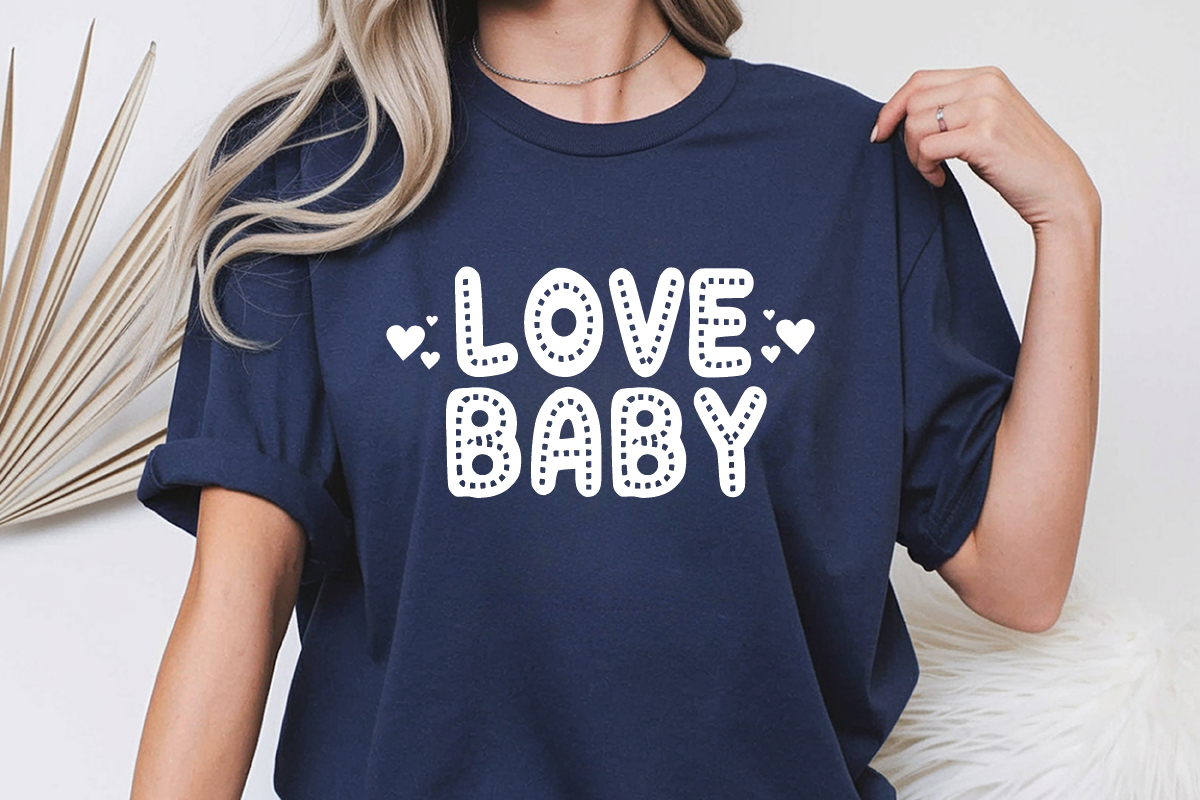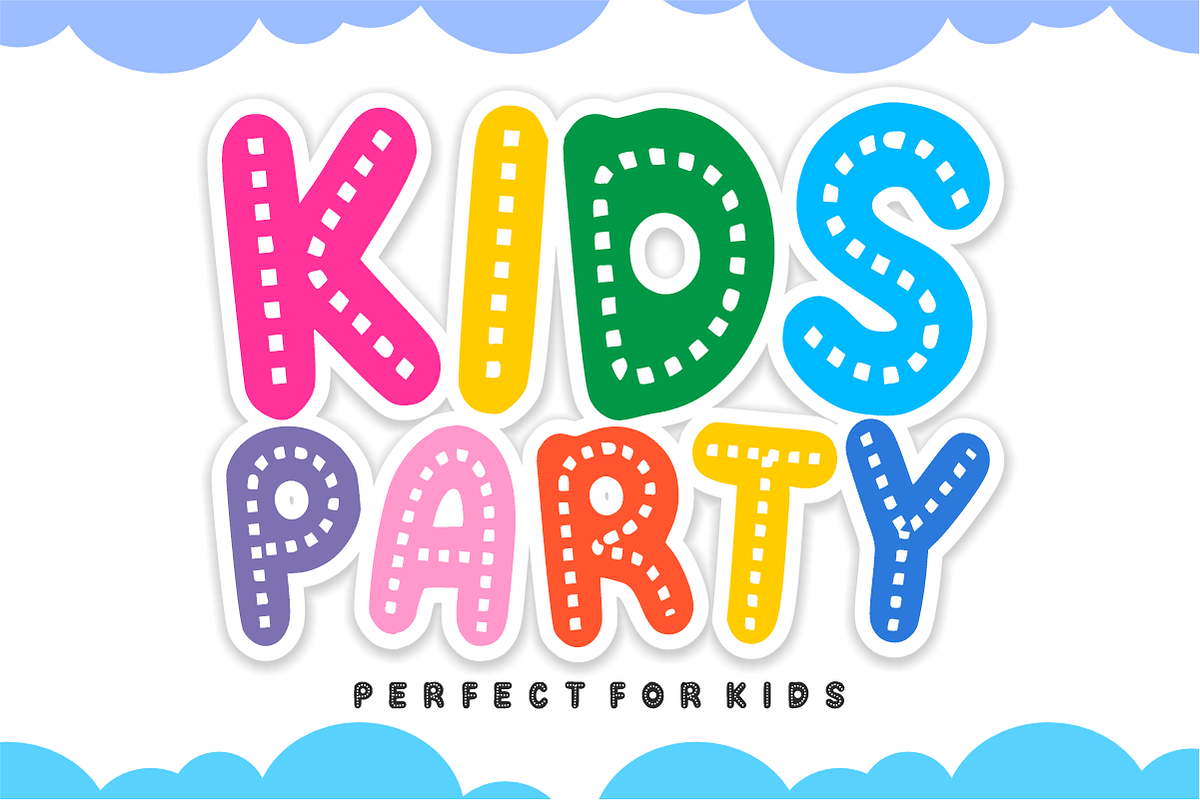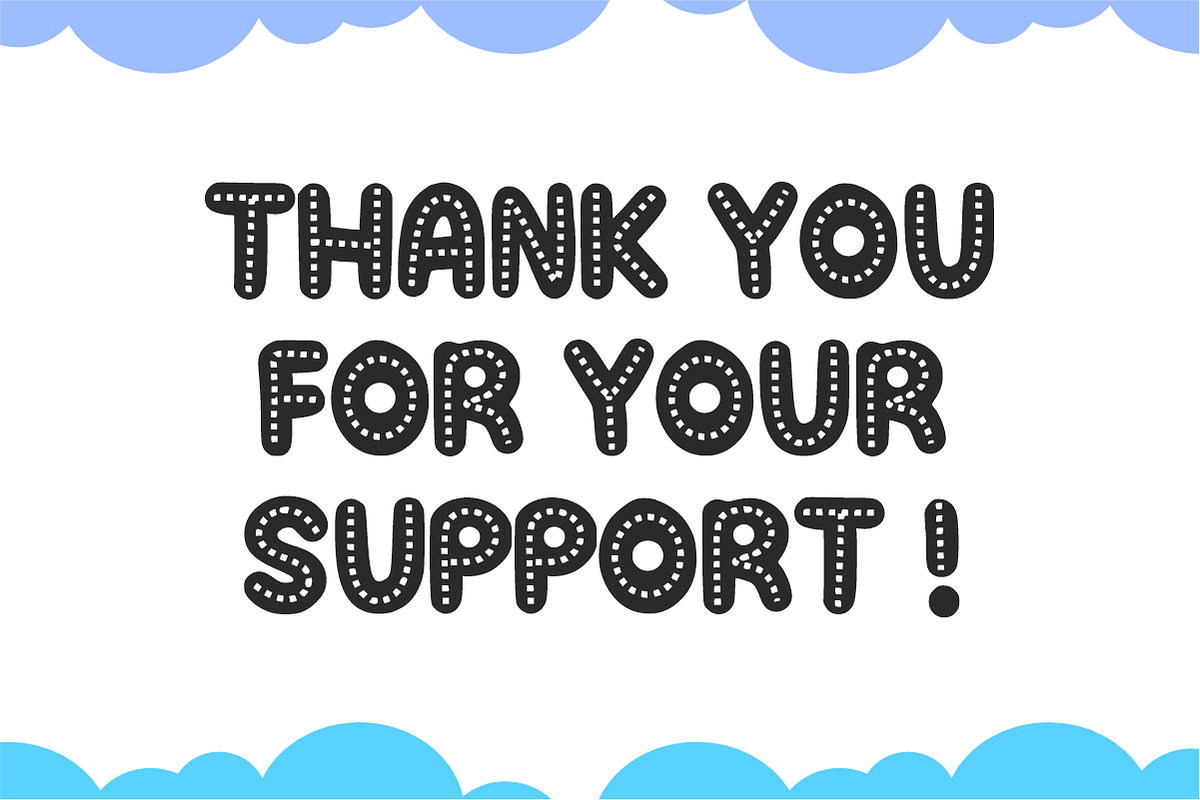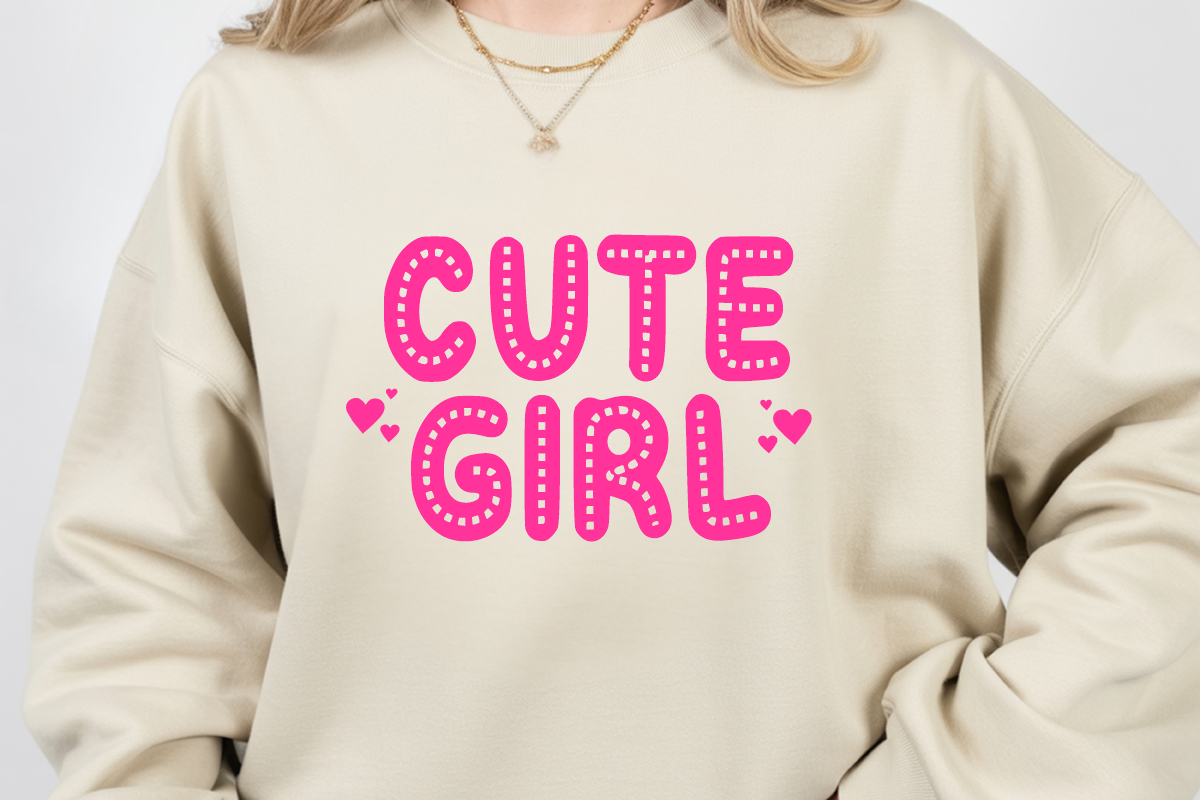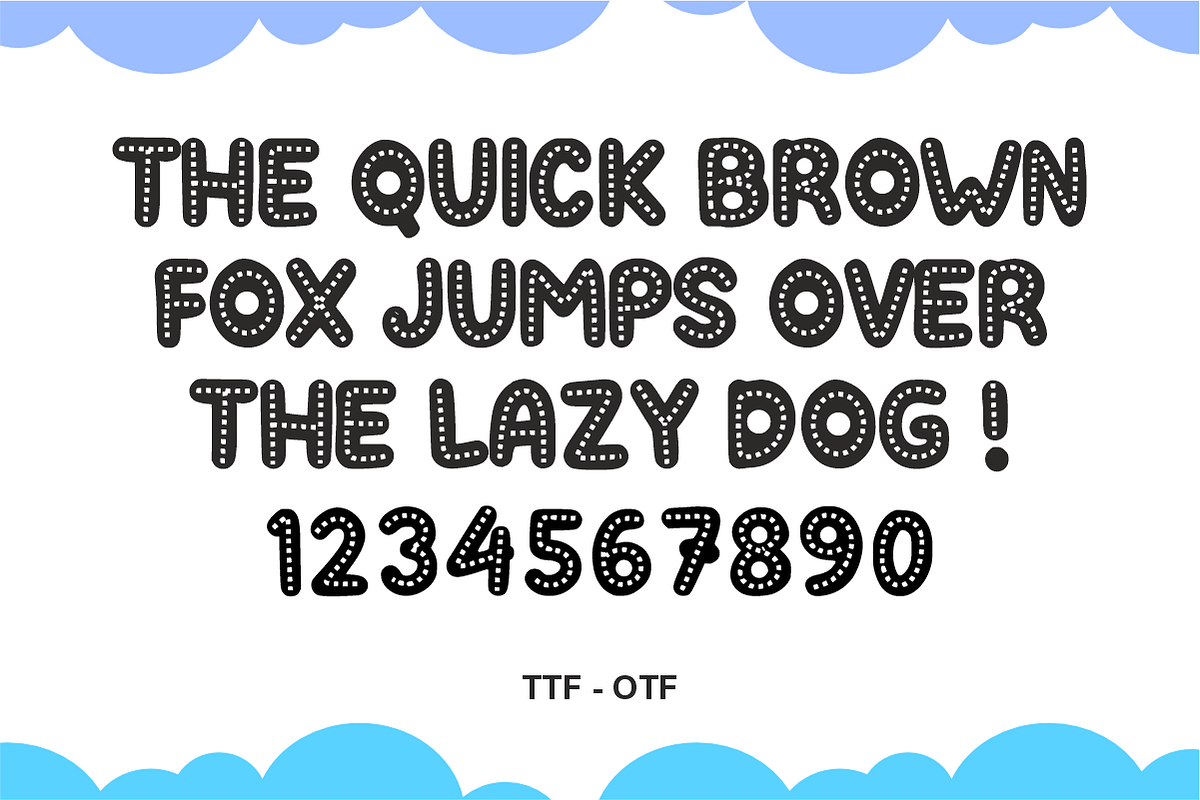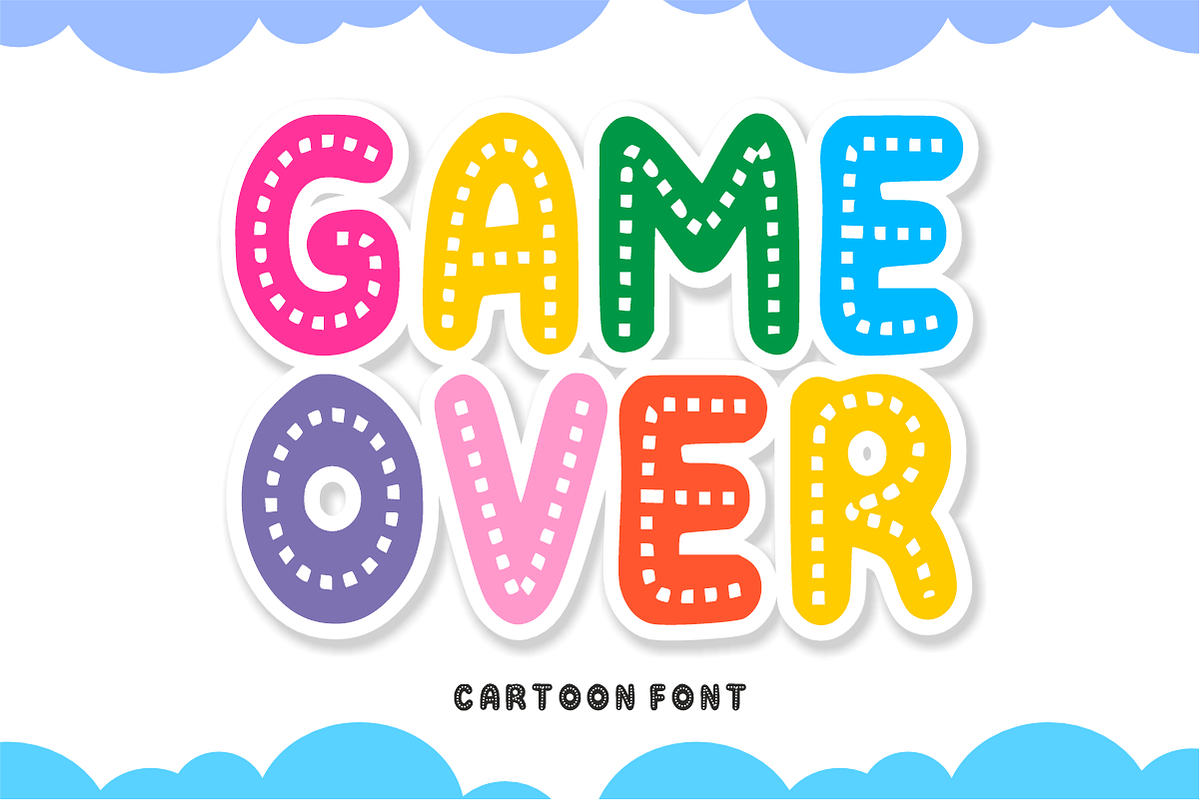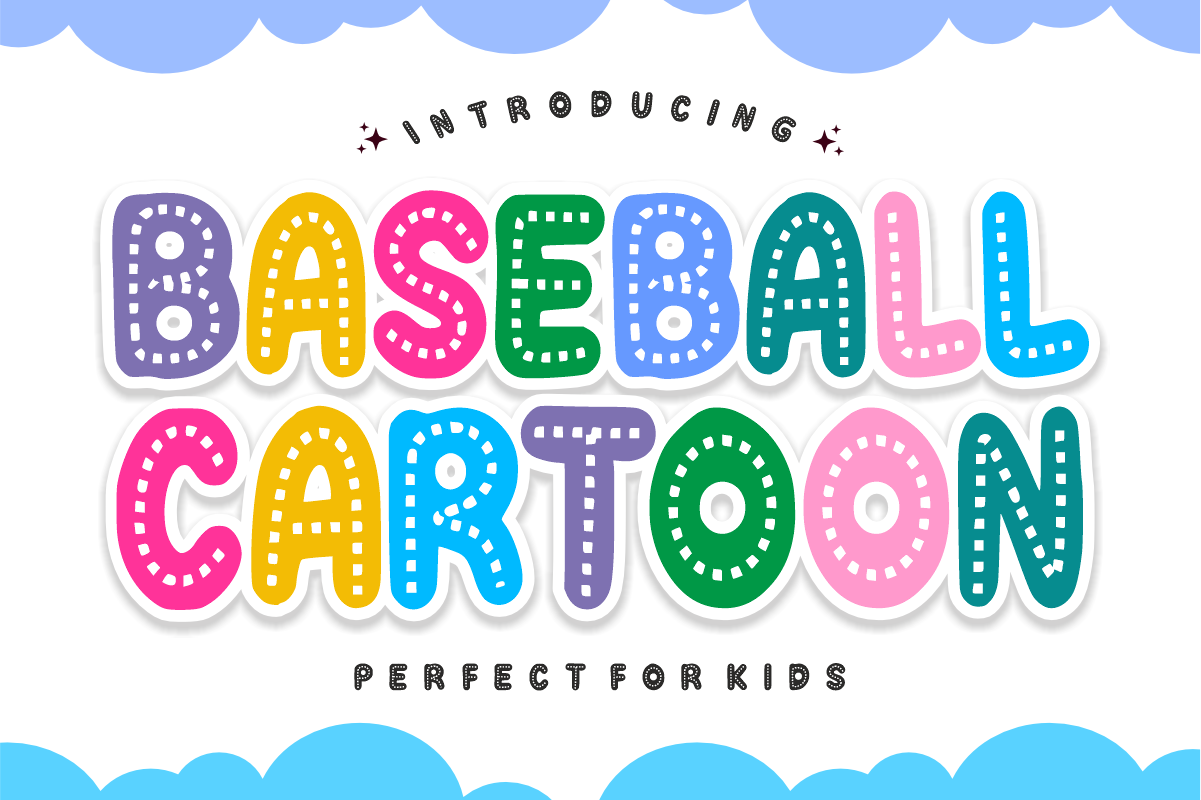
Baseball Cartoon – Stitched Font
Baseball Cartoon – Playful & Stitched Display Font ⚾🎨
Add a home-run of fun to your designs with this energetic, stitched-style font!
Baseball Cartoon is a vibrant and playful display font designed with a unique "stitched" or dashed-line detail inside each character, mimicking the classic look of sports jerseys and baseballs. Its bold, rounded silhouette combined with these charming details makes it an exceptional choice for any project that needs a friendly, sporty, and handcrafted feel. Whether you’re designing for children’s apparel, a sports-themed birthday party, or eye-catching social media graphics, Baseball Cartoon will make your text "pop" with personality.
Unique Stitched Detail: The inner dashed lines add a distinctive crafty and sporty texture that stands out from standard display fonts.
Child-Friendly Aesthetic: Its soft, bubbly curves are perfect for kids’ brands, school projects, and nursery decor.
High Impact & Readable: The bold weight ensures that your headlines remain legible and striking, even from a distance.
Versatile Design Soul: Easily transition from digital stickers and YouTube thumbnails to physical products like t-shirts and posters.
🎨 Perfect For:
👕 Kids & Baby Apparel: Design adorable t-shirts, onesies, and hoodies with a sporty twist.
🎂 Sports-Themed Parties: Create vibrant birthday invitations, cake toppers, and banners.
🏫 Educational & School Graphics: Ideal for classroom posters, book covers, and fun worksheets.
🛍️ Merchandise & Branding: Perfect for stickers, toy packaging, logo designs for kids' clubs, and sports event flyers.
📸 Social Media & Content Creation: Brighten up your Instagram stories, Pinterest pins, and playful YouTube thumbnails.
Uppercase Letters (A-Z): Expressive characters with consistent stitched details.
Numbers (0-9) & Simple Symbols: A complete set for all your creative needs.